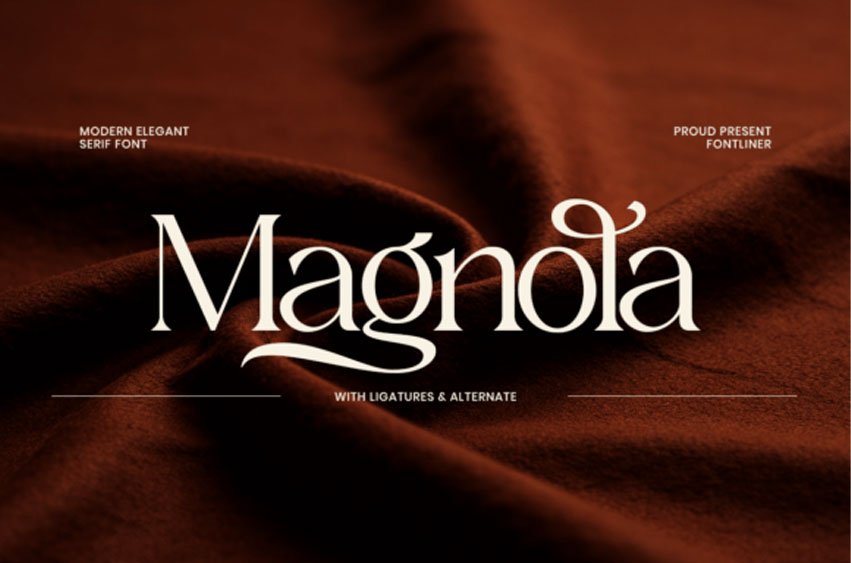
Magnola Font is a modern elegant serif typeface that blends classic sophistication with artistic flair. Its delicate yet confident appearance makes it perfect for creating timeless and luxurious visual compositions. Designed with versatility in mind, Magnolia works beautifully across a wide range of design needs—from editorial layouts and fashion branding to wedding invitations and high-end packaging.
Whether you’re building a premium brand or designing a romantic visual identity, Magnolia delivers a harmonious balance between modern style and classic beauty, making it a standout choice for sophisticated design work.